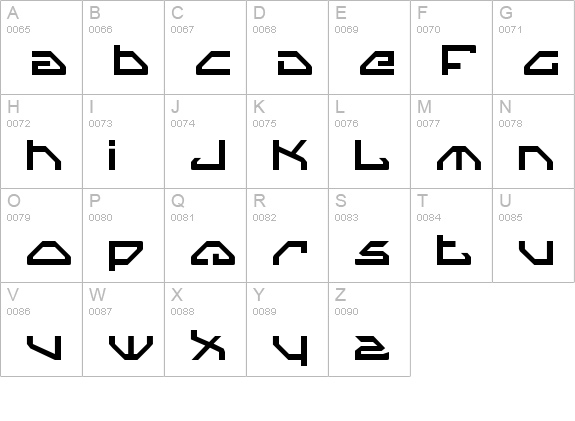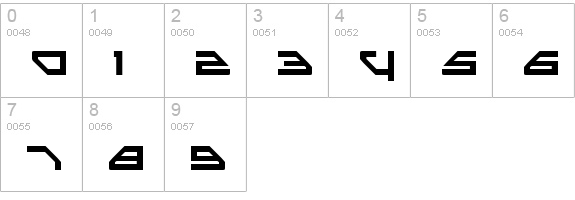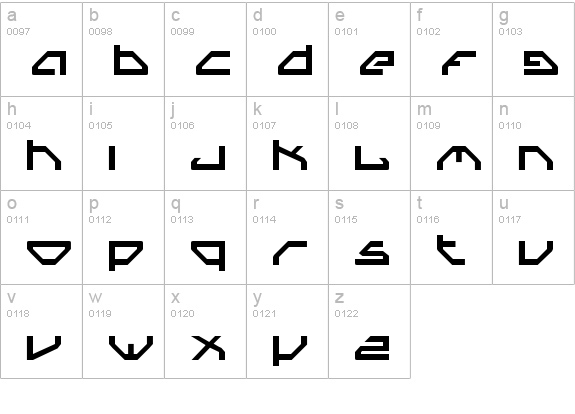
Introducing Spylord, the font that exudes intrigue, elegance, and a touch of mystery. This captivating typeface is perfect for those seeking to add a dash of espionage to their design projects. With its sleek and sophisticated letterforms, Spylord commands attention and leaves a lasting impression. What sets Spylord apart is not only its undeniable charm but also its versatility. Whether you're designing a secret agent-themed poster, a spy novel cover, or a cutting-edge logo for a tech startup, this font adapts effortlessly to any creative endeavor. Its clean lines and bold strokes make it easily readable, while the subtle curves and unique details inject an air of sophistication. But what makes Spylord even more enticing is the fact that it is free. Yes, you read that right – this exceptional font can be yours without spending a dime. Simply visit FontsMarket.com and download Spylord to unlock a world of possibilities. Enhance your designs with the allure and allure of Spylord, and watch as your projects come to life. So, whether you're a graphic designer, a marketing professional, or simply someone with a passion for visually captivating typography, Spylord is here to elevate your work to new heights. Embrace the intrigue, embrace the elegance, and embrace the freedom of expression with Spylord – the font that's freely available to download at FontsMarket.com.